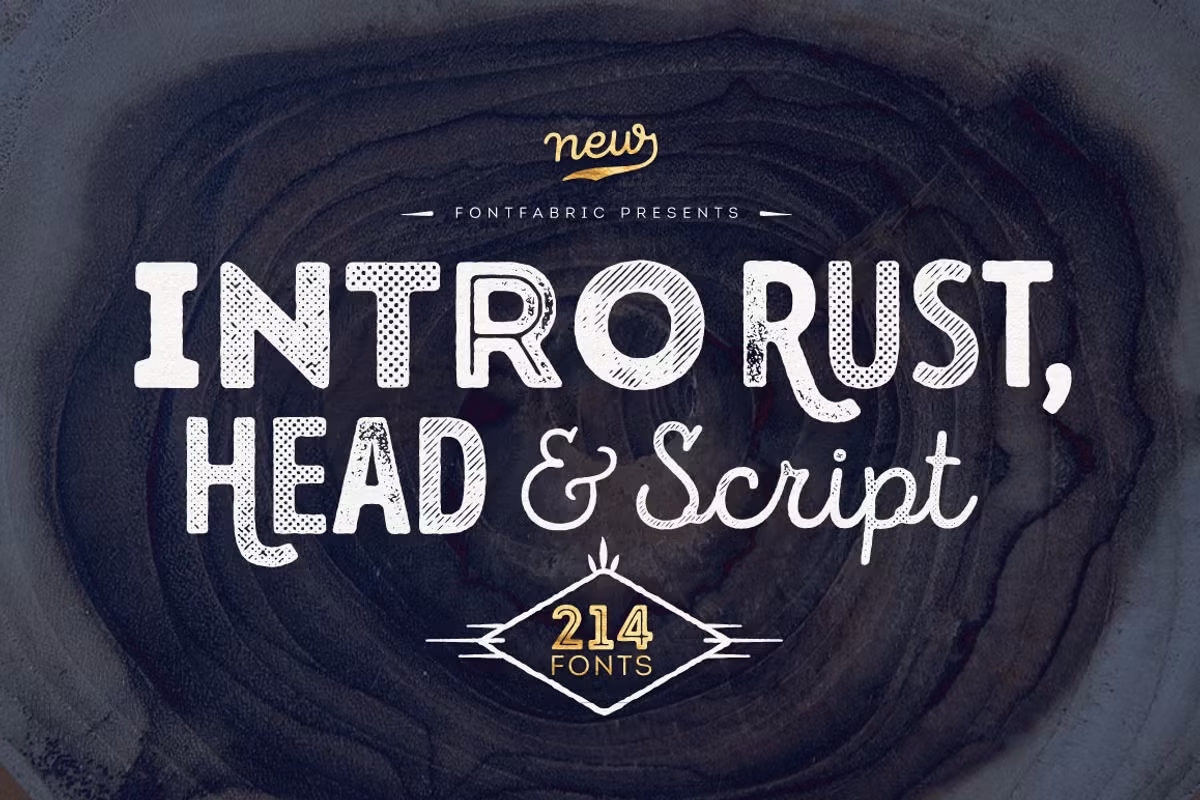
Intro Rust - Pack of 214 Fonts Free Download is an extensive and versatile typeface collection that includes 214 fonts, providing a wide range of styles from sleek sans-serifs to rugged, hand-drawn designs. Perfect for a variety of projects, this pack offers flexibility for logos, branding, editorial designs, posters, packaging, and more, all with a distinct, contemporary rustic feel.
Intro Rust - Pack of 214 Fonts Free Download offers you a complete toolkit for all your design needs, from vintage-inspired lettering to modern, industrial typography. With so many options, you can create standout designs that fit any mood, style, or brand identity. Download it today and discover the power of variety with this expansive font pack!